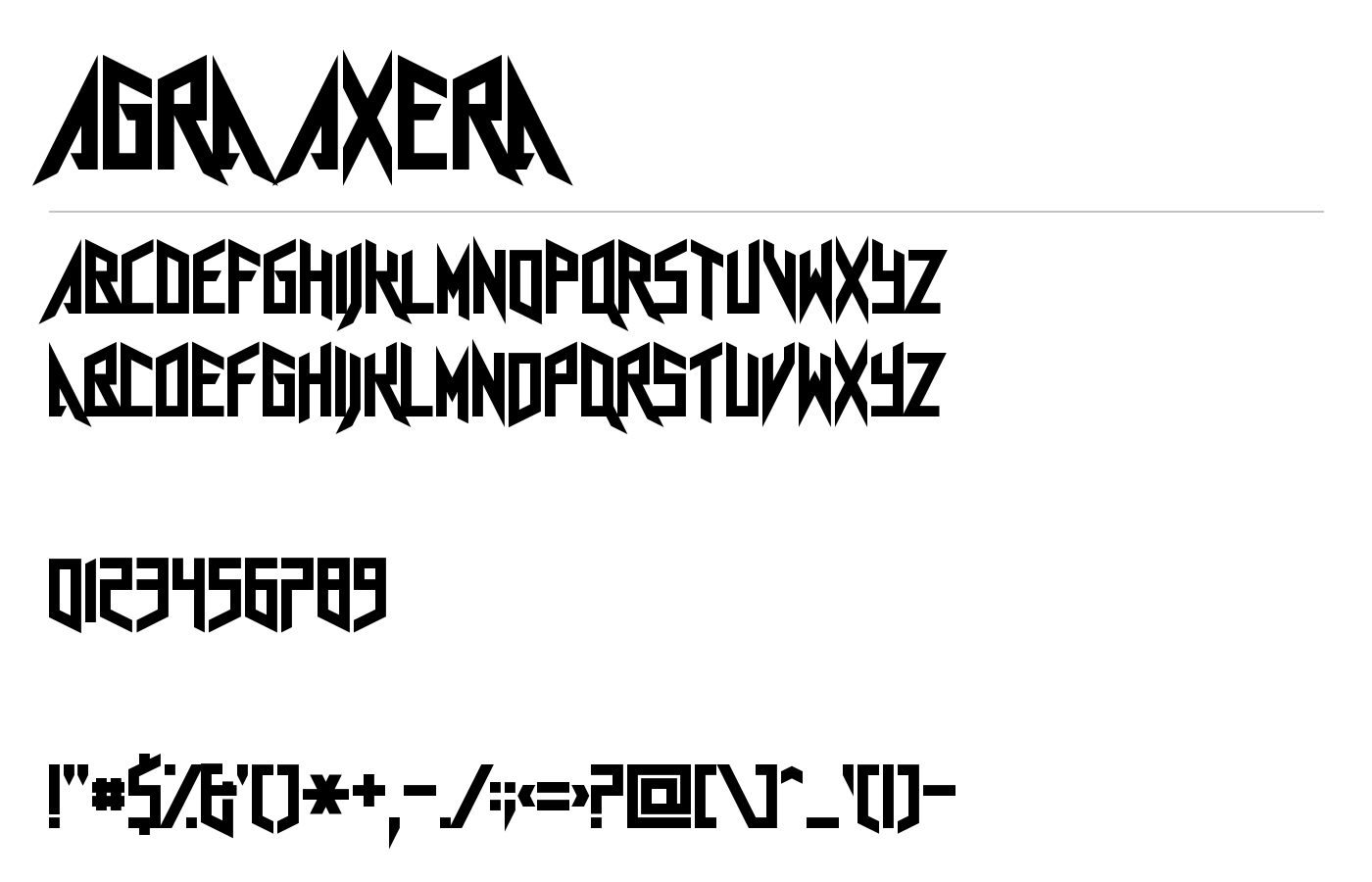
Agra Axera is a bold, geometric sans serif font with sharp, angular letterforms that create a striking and aggressive aesthetic. Its condensed width and high contrast between thick and thin strokes give it a futuristic, edgy personality, making it ideal for impactful headlines, logos, or branding that aims to convey strength and modernity. This font works best in display settings where its distinctive, intense style can stand out and catch attention.
Agra Axera Font
About Agra Axera Font
| Designer | Andrew McCluskey |